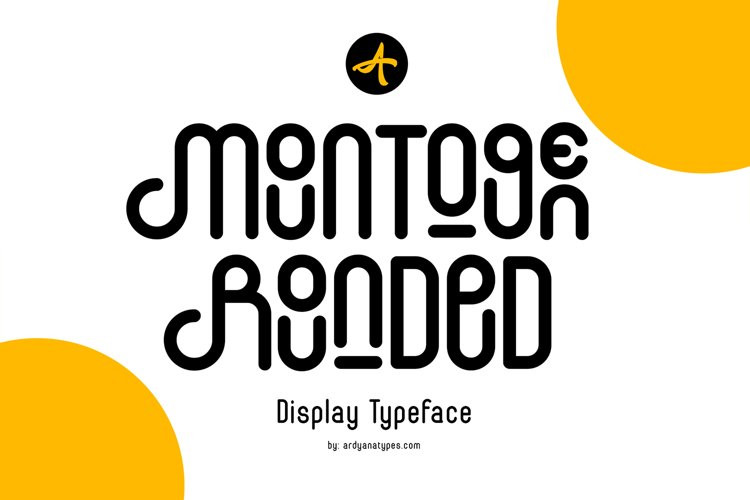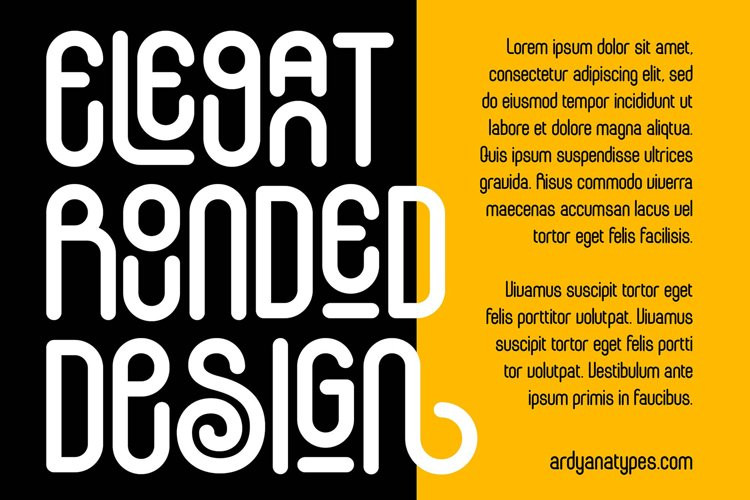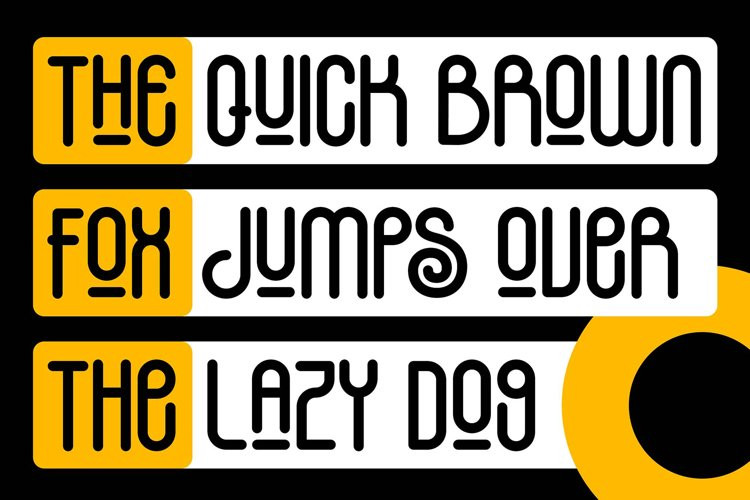
Mountogen Rounded Font
Mountogen Rounded FontIntroducing Mountogen Rounded Typeface Style which has a unique and very strong characteristic that makes all designs look unique and have a modern feel. Mountogen Rounded has its own charm, so it will be very suitable to be combined with any style. Has Lots of Alternatives and ligatures to add a great interactive feel to every design. Mountogen Rounded also comes with multilingual support and is very easy to use. Mountogen Rounded is interesting to use in designs such as books, movie posters, logos, branding, business cards, and more that can be combined with Mountogen Rounded.